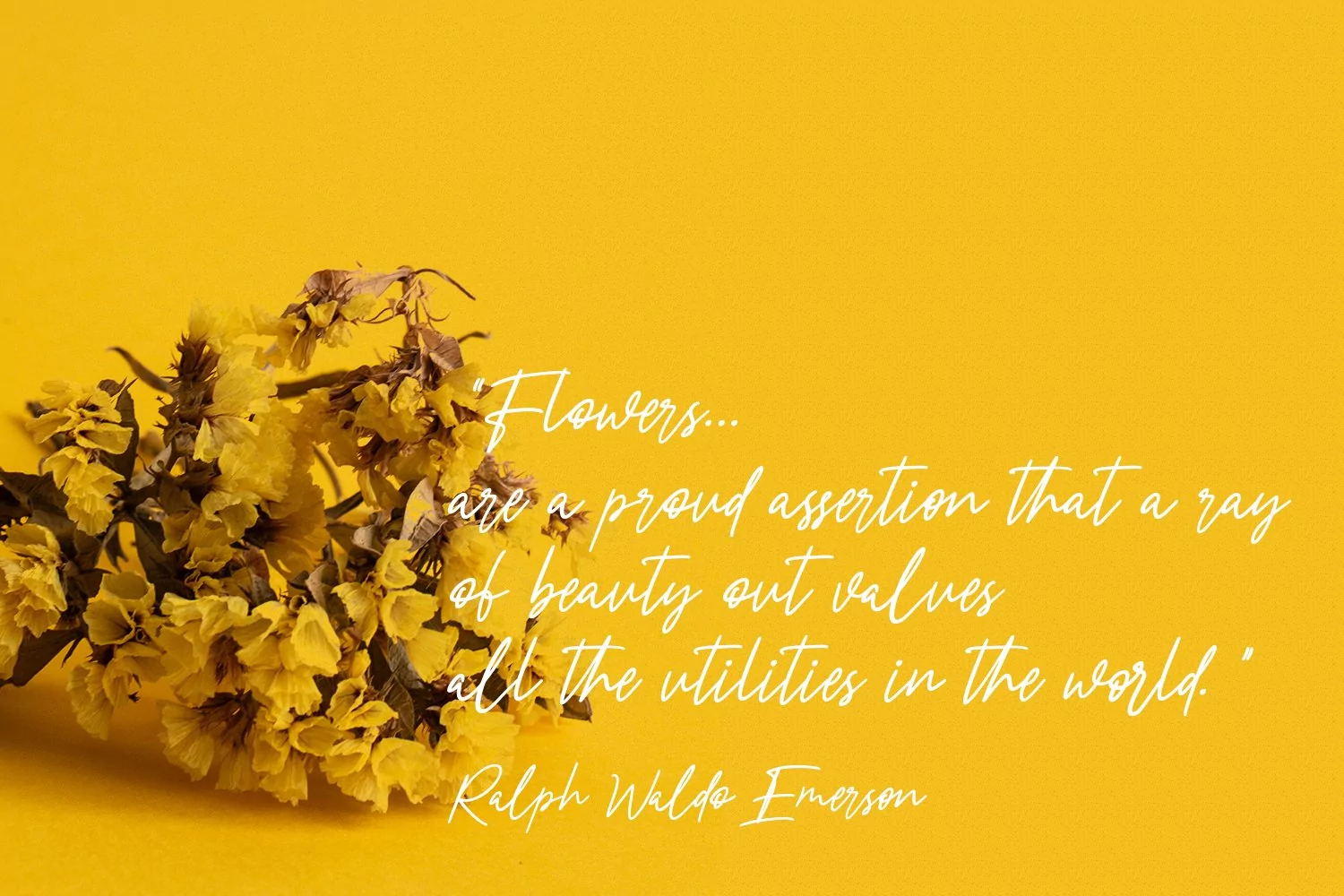
Nicestrips is a fancy casual script font With clean stroke, super slanted and fun character. It has Opentype features of ligatures and some alternate lowercase character, To give you an extra creative work. Nicestrips script font support multilingual more than 100+ language. This font is good for logo design, Social media, Movie Titles, Books Titles, a short text even a long text letter and good for your secondary text font with sans or serif. Make a stunning work with Nicestrips font.